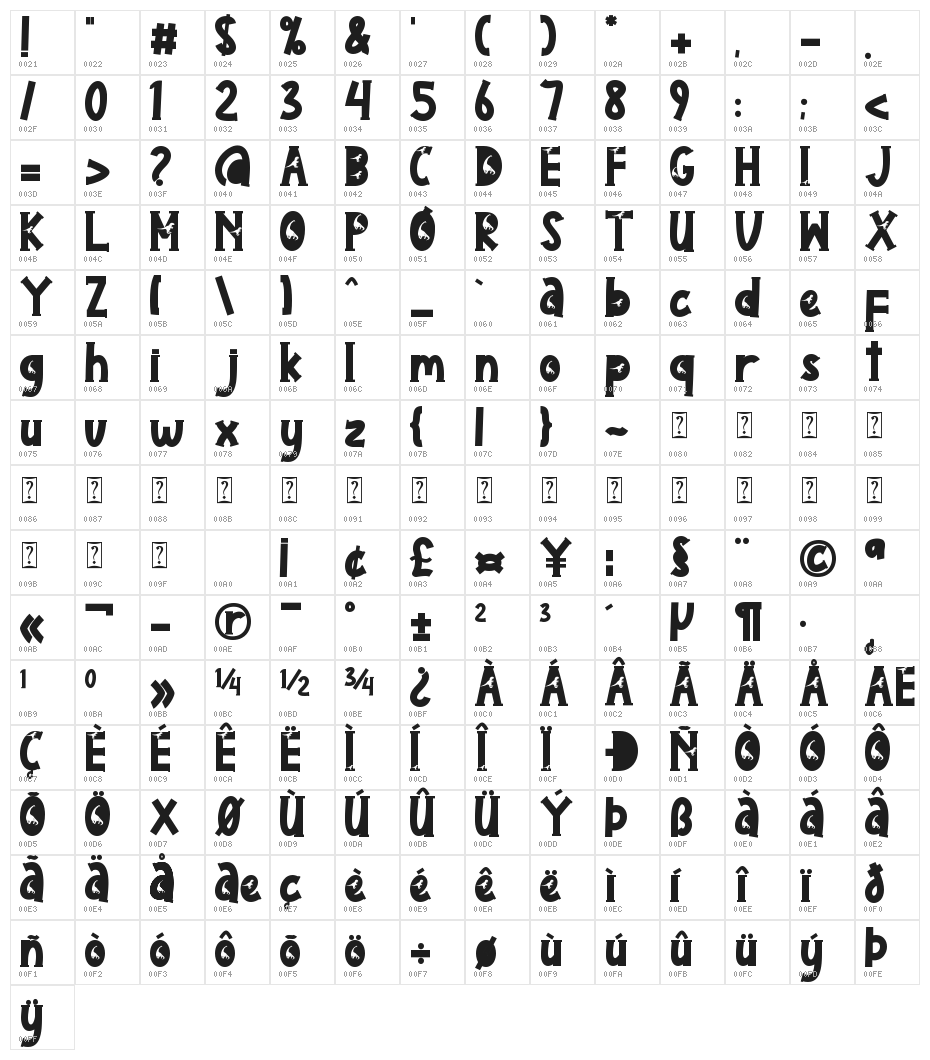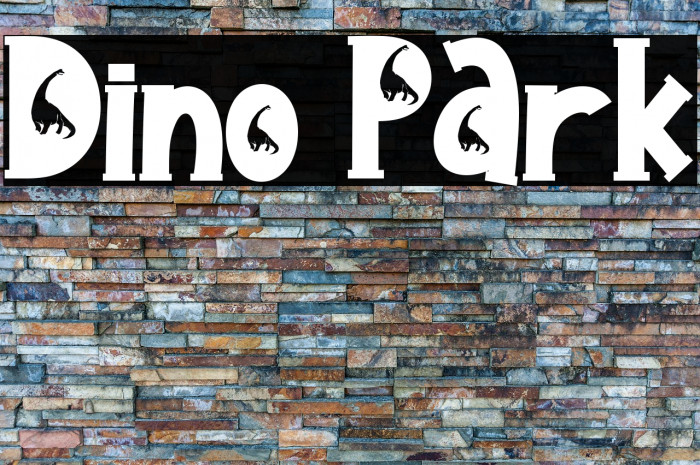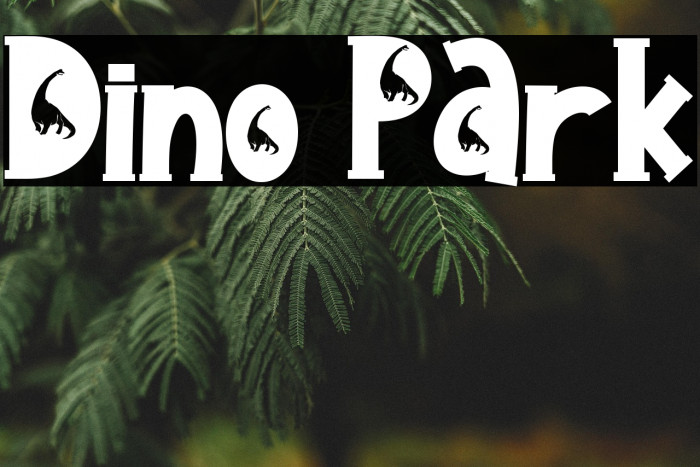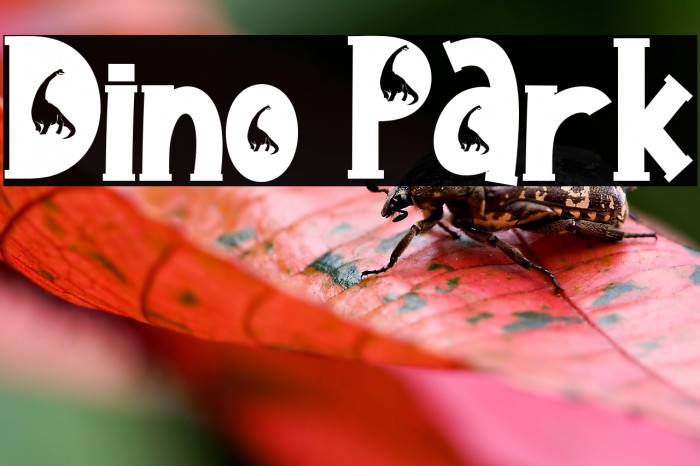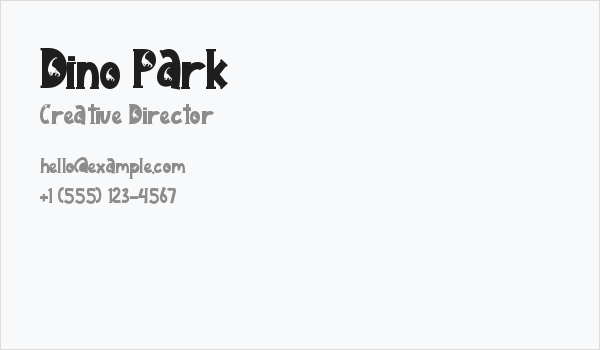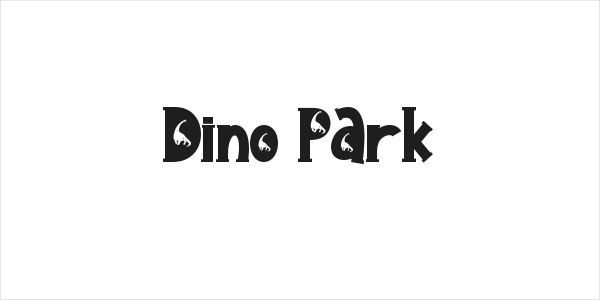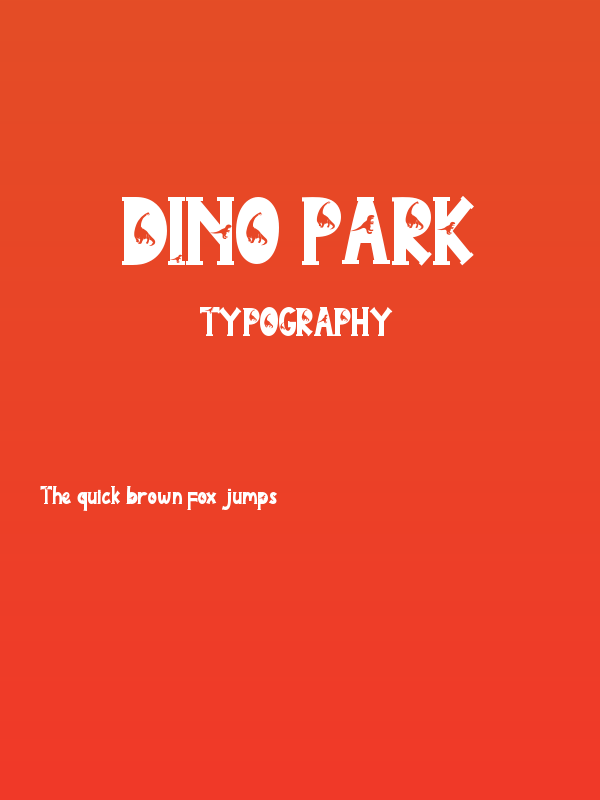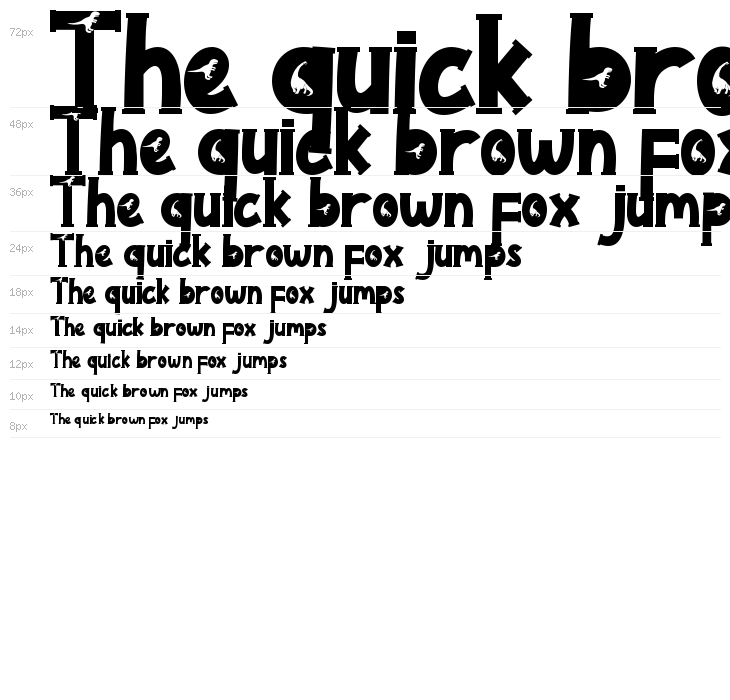
Dino Park Font
Dino Park Description
This playful and bold font features a unique dinosaur motif integrated into the design of each character, adding a whimsical and prehistoric touch. The letters are thick and robust, with a slightly irregular shape that enhances its playful nature. The uppercase and lowercase letters maintain a consistent style, with the dinosaur elements cleverly incorporated into various parts of the characters. The numbers and special characters follow the same design principles, ensuring a cohesive look across all glyphs. This font is perfect for projects that require a fun and engaging aesthetic, particularly those aimed at children or themed around dinosaurs.
| Proposed Projects | Ideal for children's books, dinosaur-themed events, educational materials, and playful branding. |